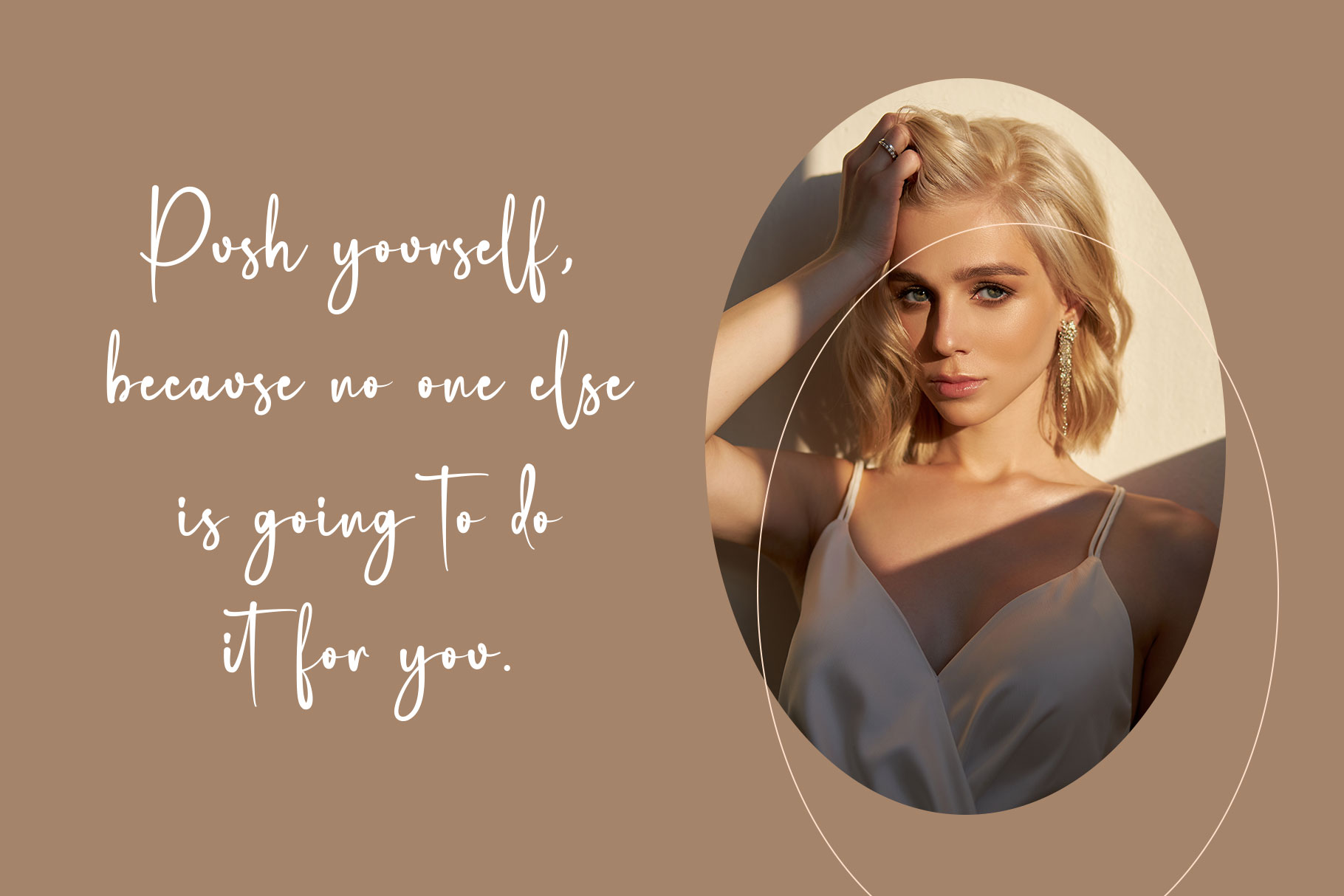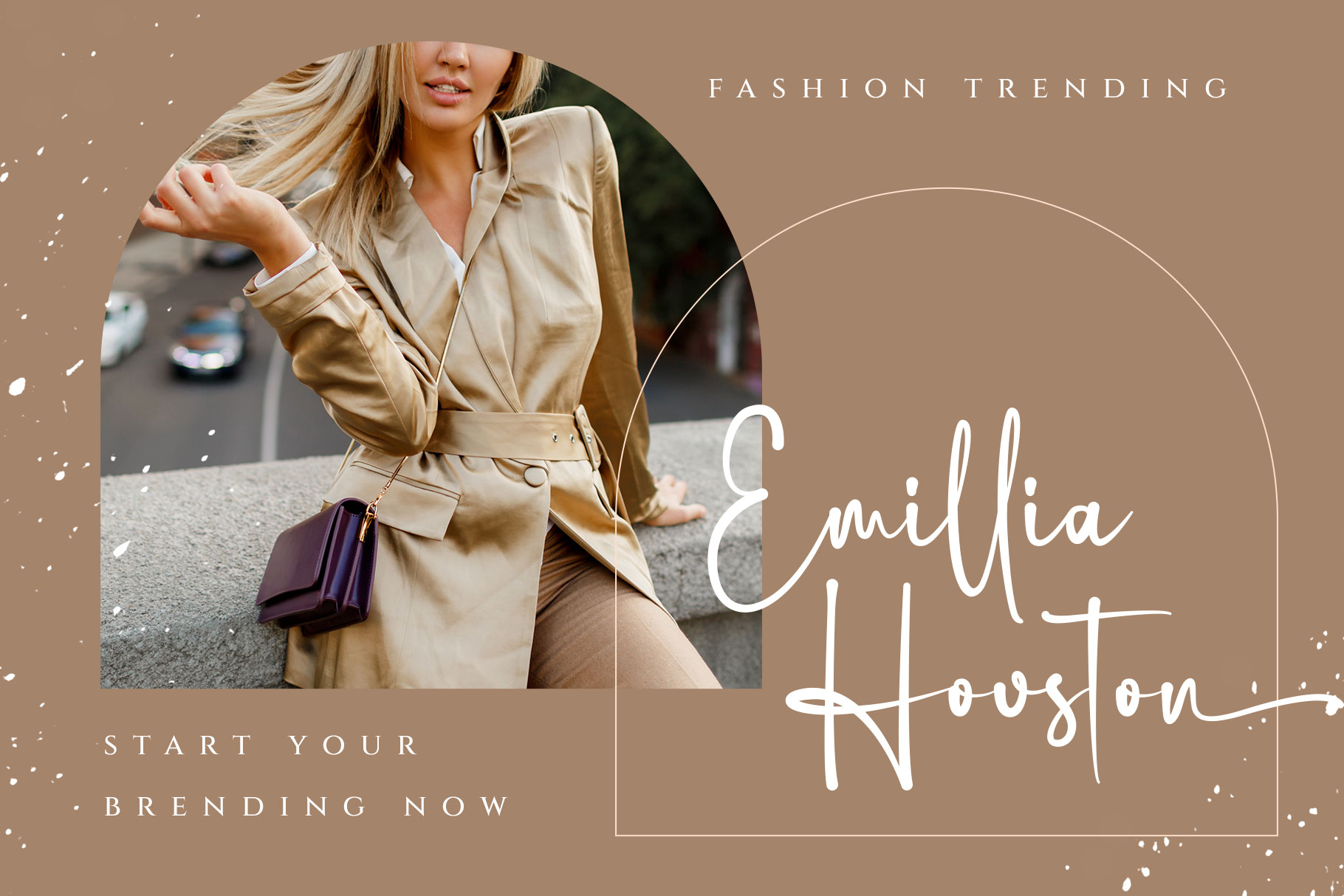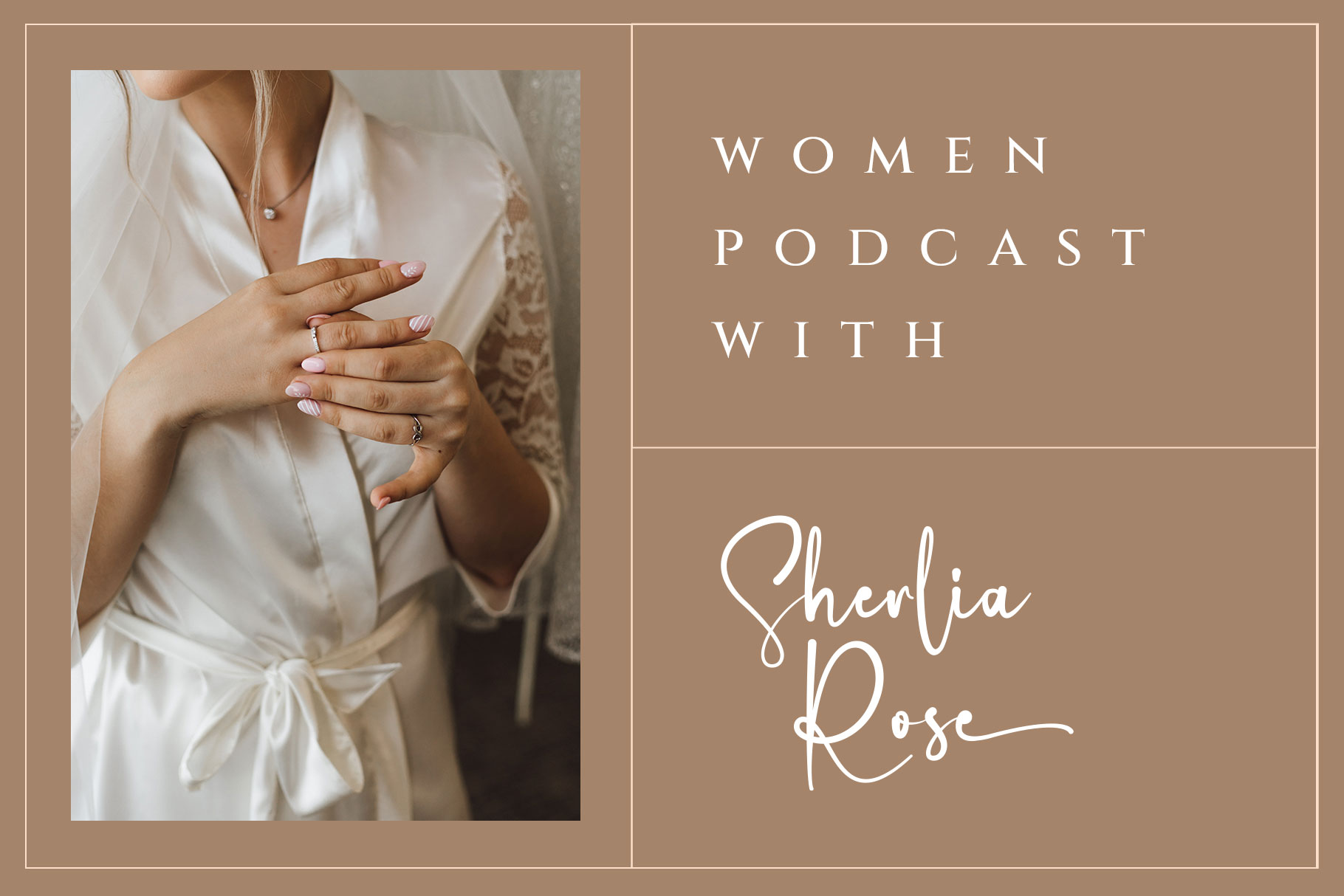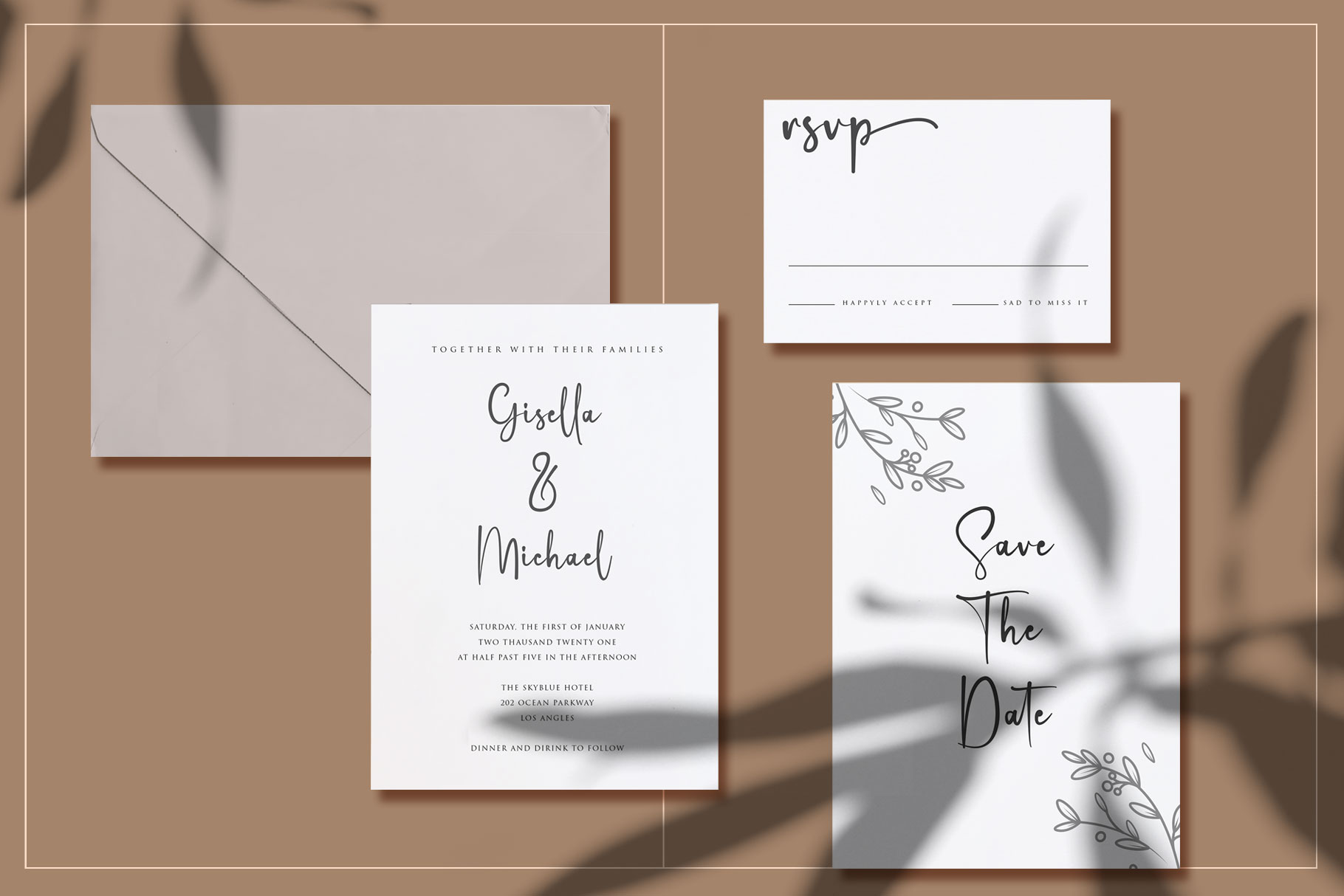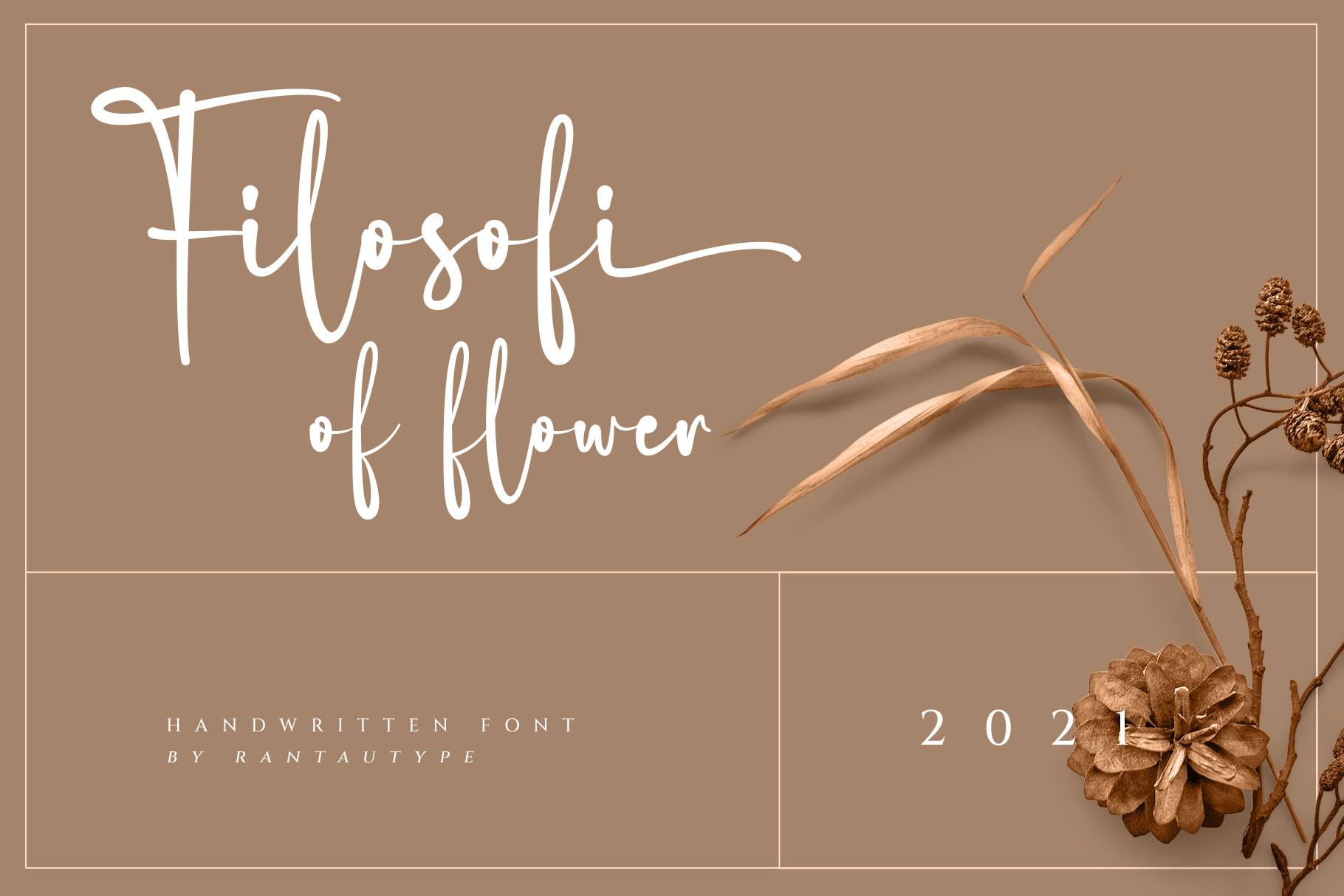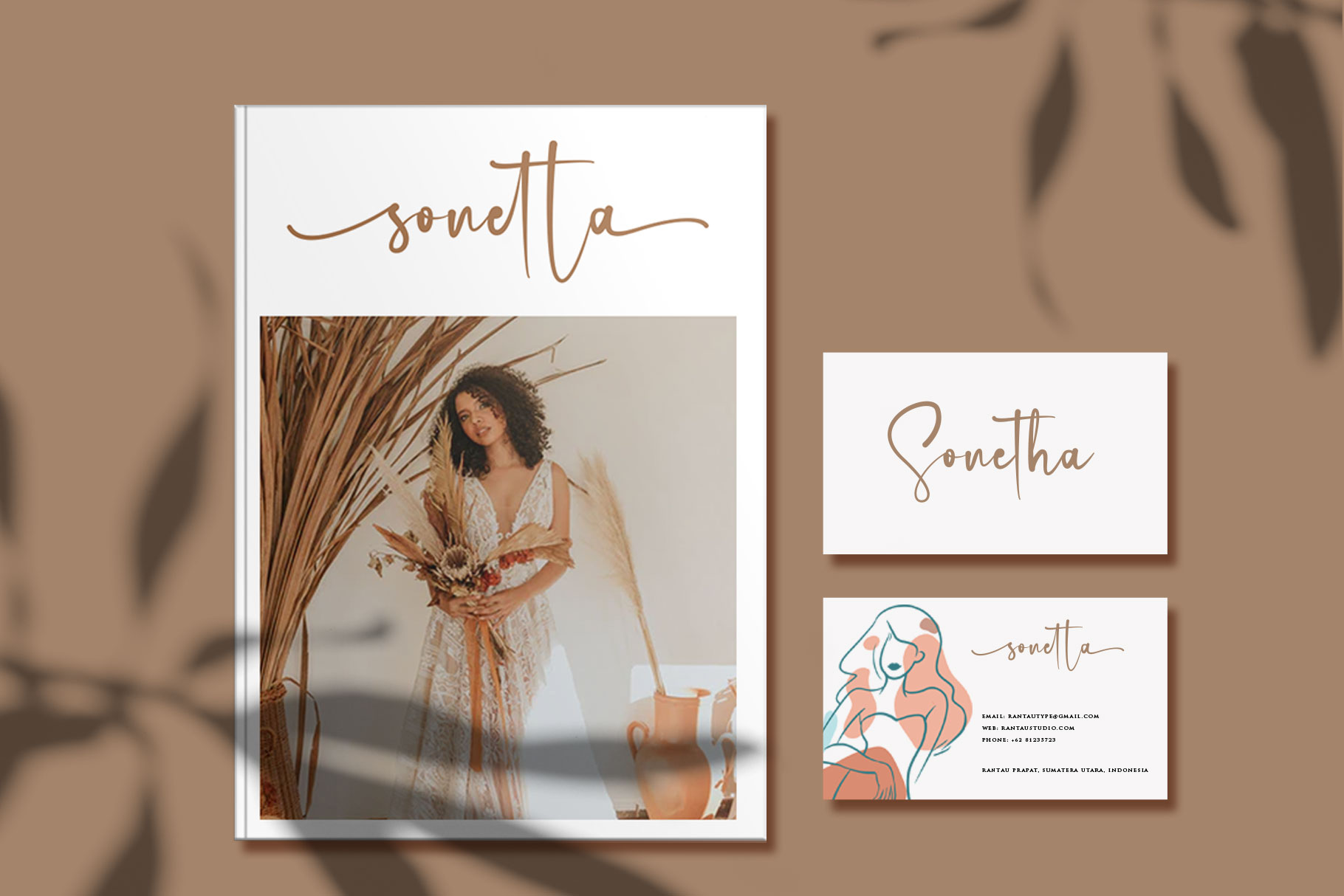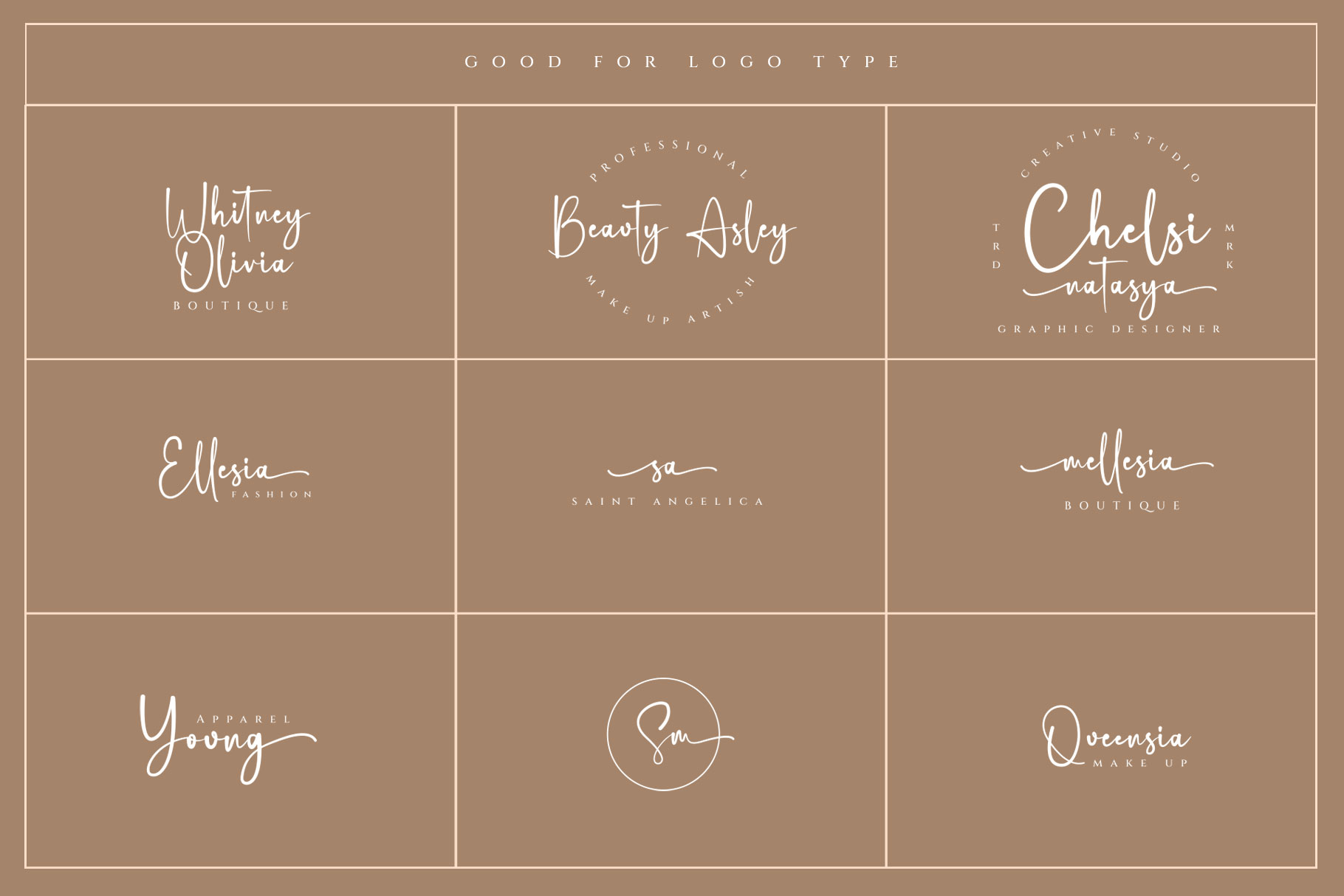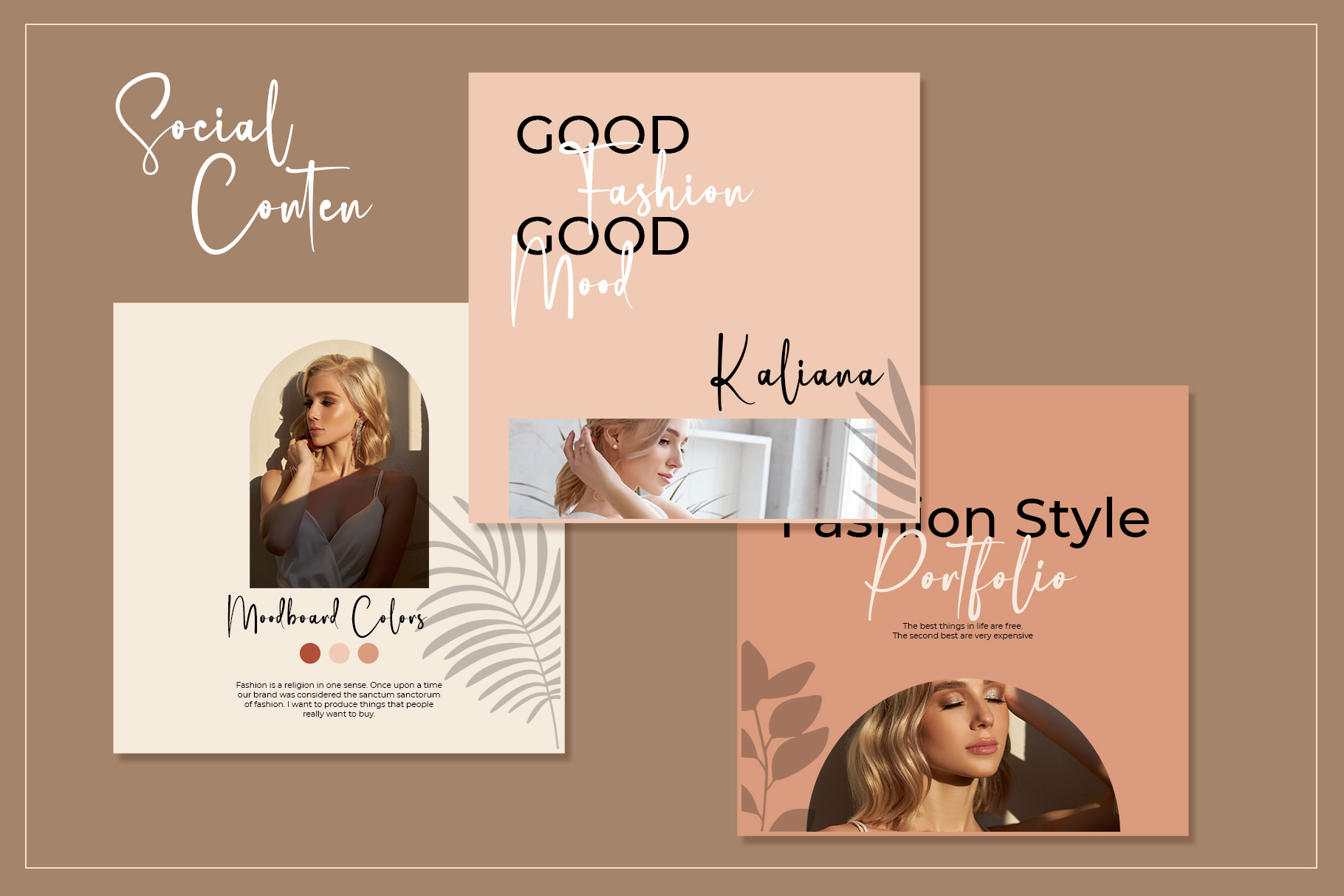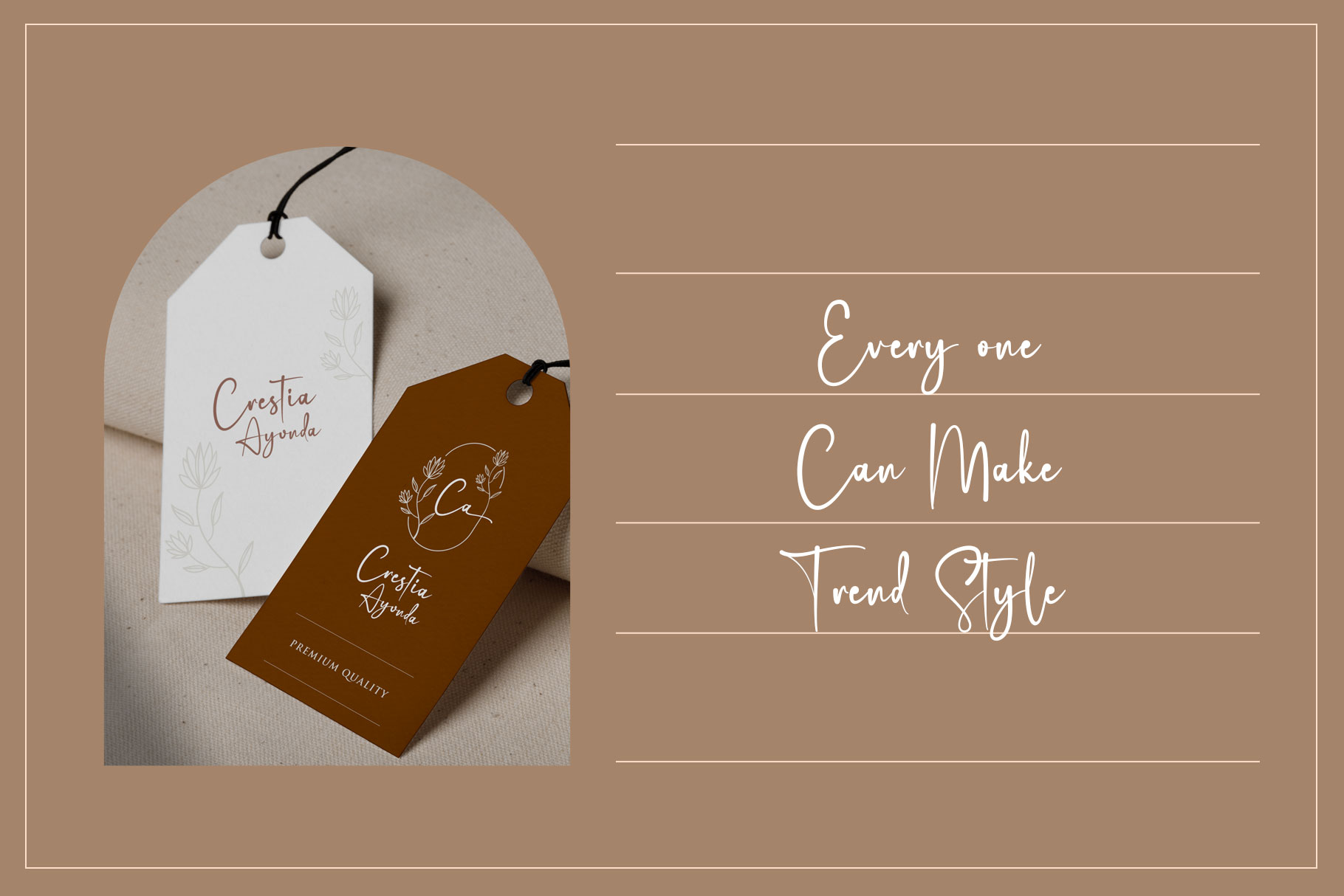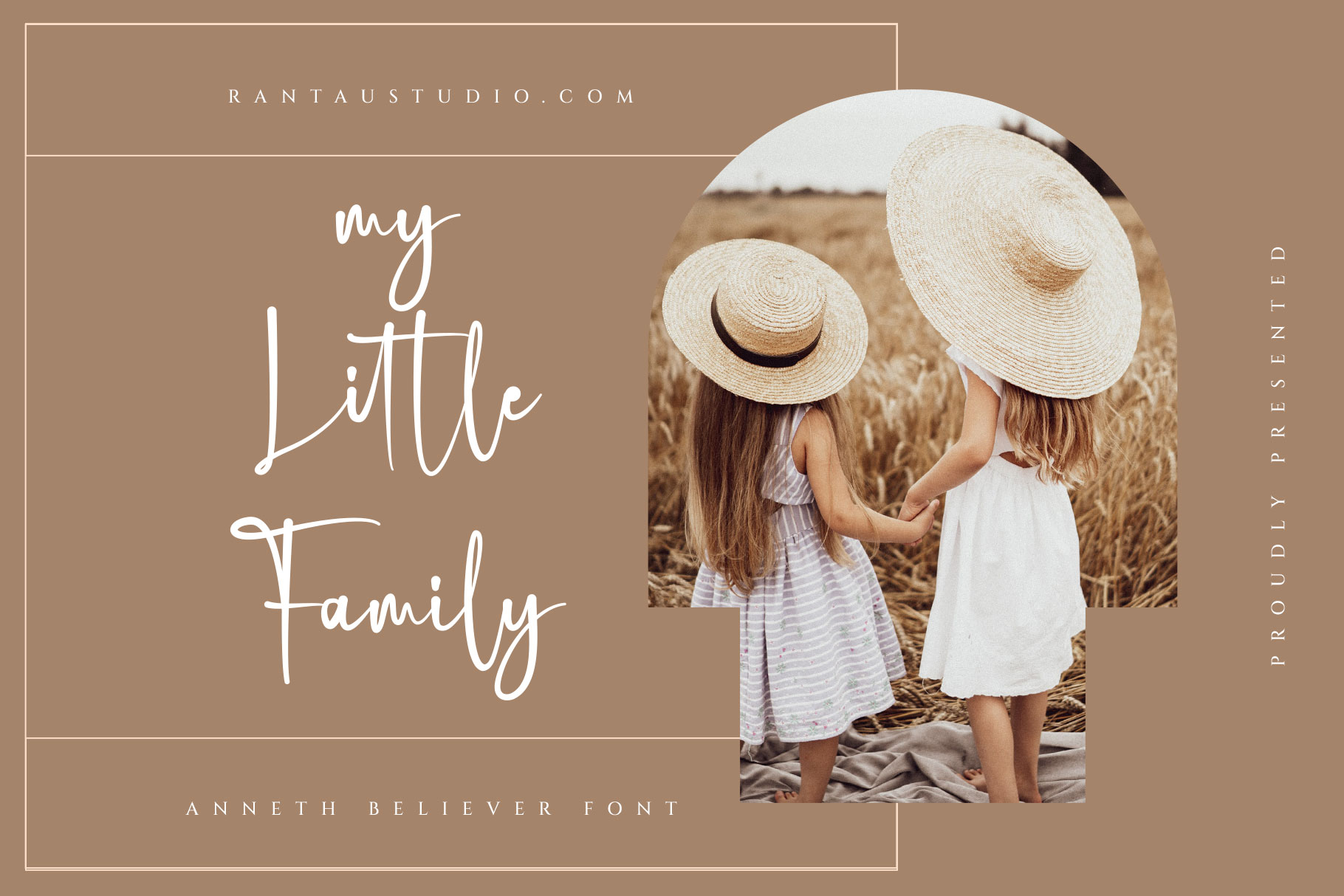
Anneth Believer handwritten  font
Proudly present another handwritten  font “Anneth Believer”.
This font is elegant look style which can be interpreted professional. we keep this font looks modern, luxury, readable, stylish, feminine, girly, catchy and easy to use. Anneth Delliecia is the great choice for watermark on photography, signature or signature logo design, quotes, album cover, magazine, business card and many other design project. Anneth Delliecia here to make your work to high level!!!
• Alternate with begin swash and end swash
• ligature